SATURDAY, JUNE 4, 1983
This sheet (scanned and stitched together) shows an early logo revision based on Walt's sketch. Around the logo are alternate versions of the "R", which I drew the following day.
Below is the next revision with slight changes to the beginning and end strokes of the "O" and to the leg of the "R".
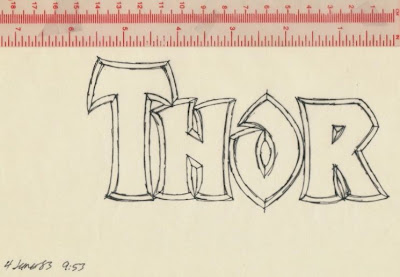
SUNDAY, JUNE 5, 1983
A detail from the sheet with alternate "R" designs I drew at 4:20 pm. The second "R" would be used in the final logo. The other versions have too many facets.